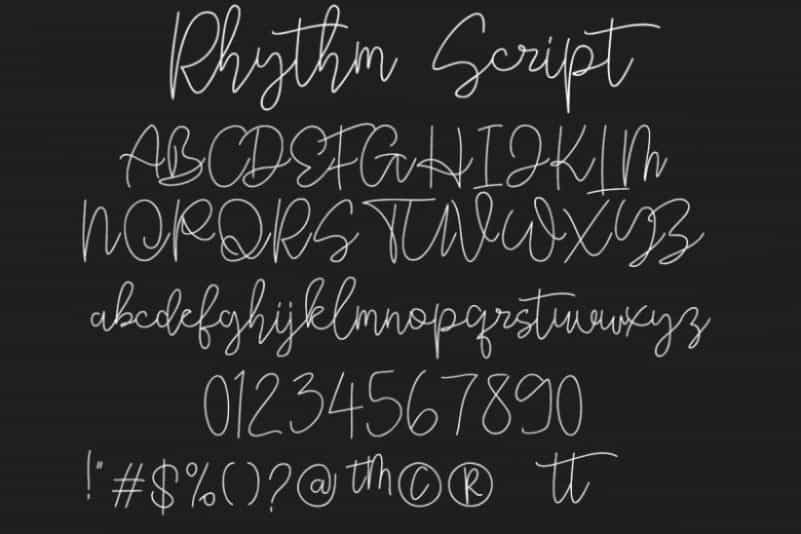
Discover Rhythm Handwritten Script Font, part of the Handwritten Script collection—a versatile and unique font perfect for adding a personal touch to your projects. Download it for free and enjoy crafting designs with style, from invitations to social media posts. This font is available exclusively for personal use, giving you the freedom to create without limits. Unlock your creativity with Rhythm Handwritten Script Font today!
“Rhythm Font” that appears to be handwritten and designed by hand. Mix it with other fonts to add the look of a classic to your project. This typeface is specially designed ideal for you if you want to bring a touch of tenderness to your work. It is a typeface that is handwritten is great to brand and embellish any type of project.